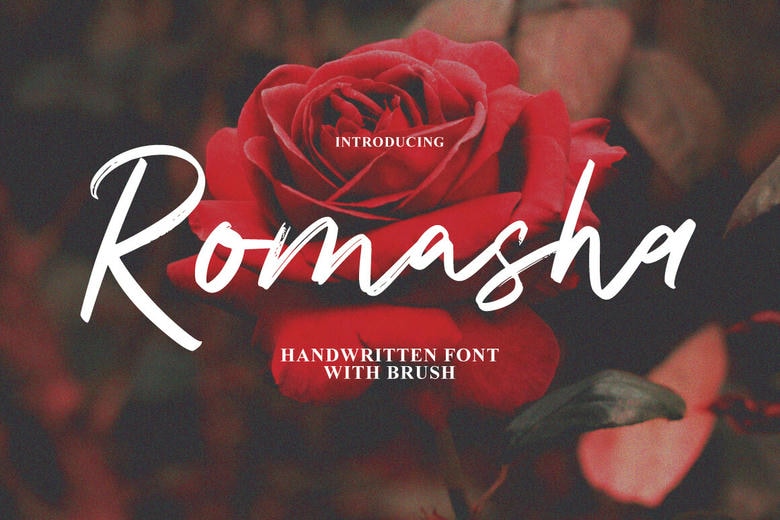
Romasha Font
Romasha is a comparatively sweet an cursive handwritten font. It would be perfect for a number of design concepts; the softness of this font will be beautiful on this project. It will bring the joy and romance to each of your projects!
Romasha Handwritten Brush Font